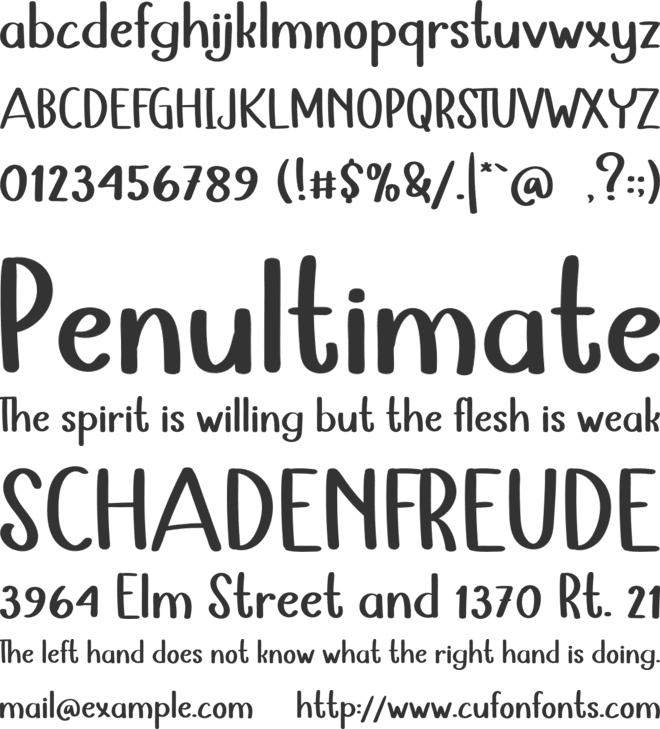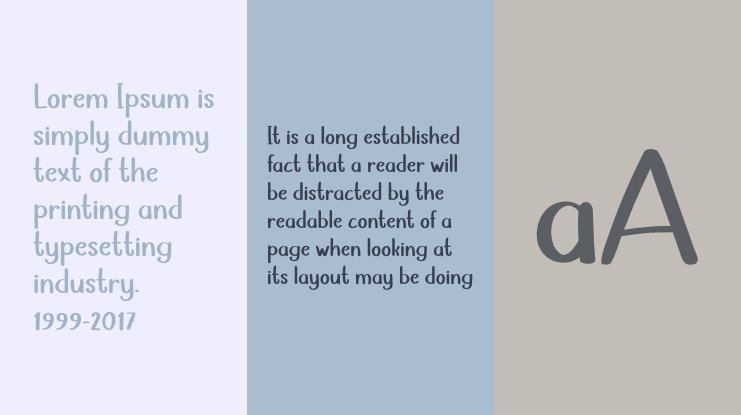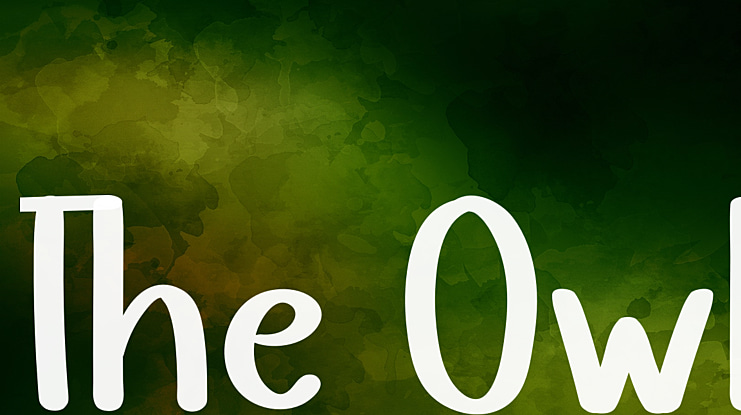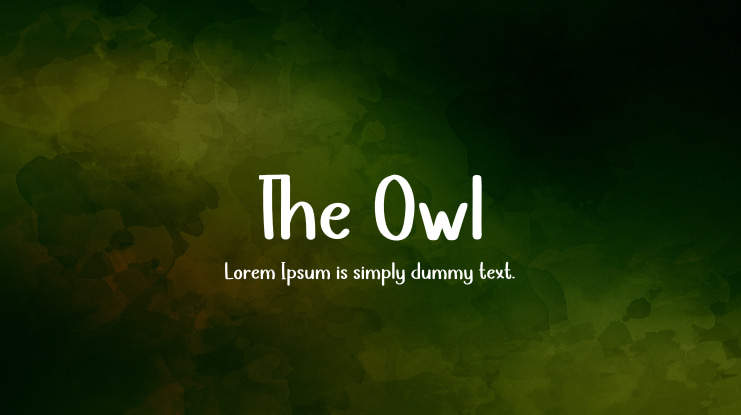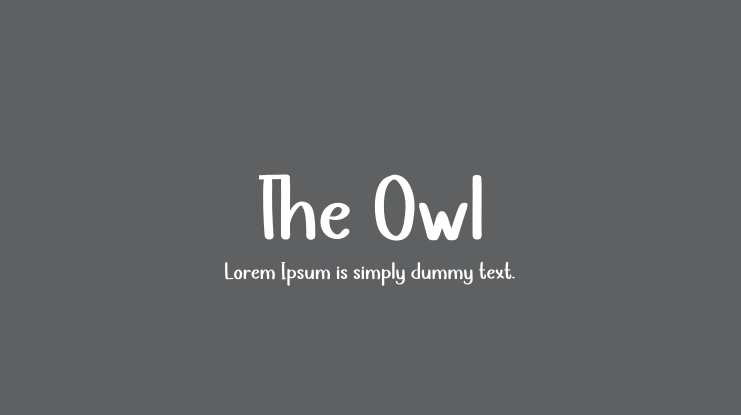
The Owl Font
The Owl is a fun and playful display font. It has friendly characters and an easily readable style that will look best on books, magazines, apparel designs, banners, and more!